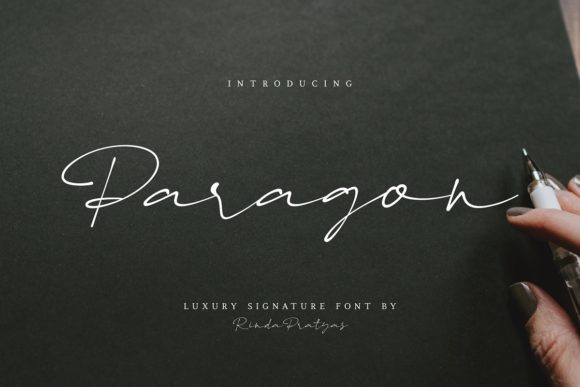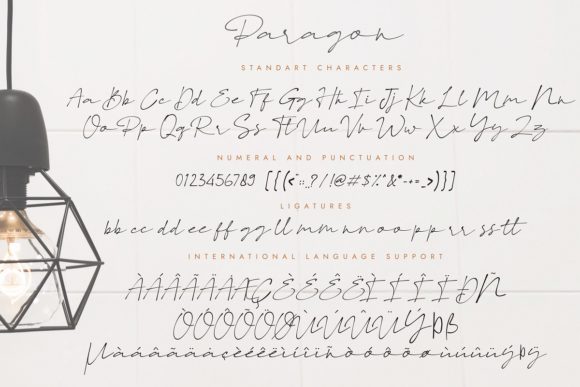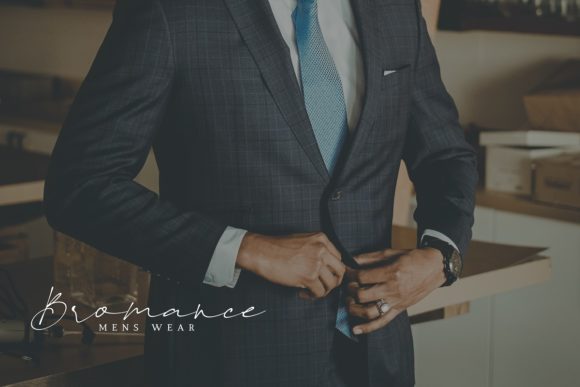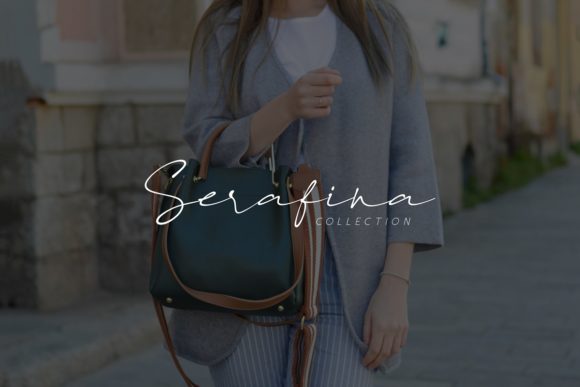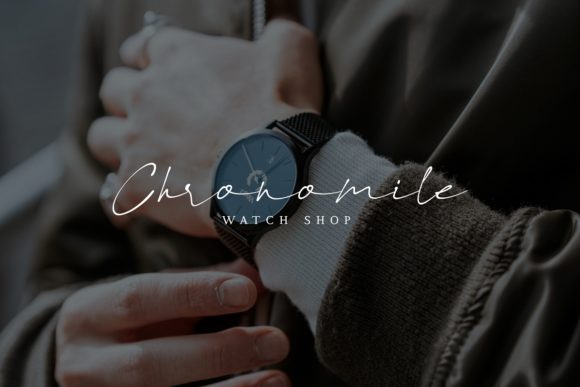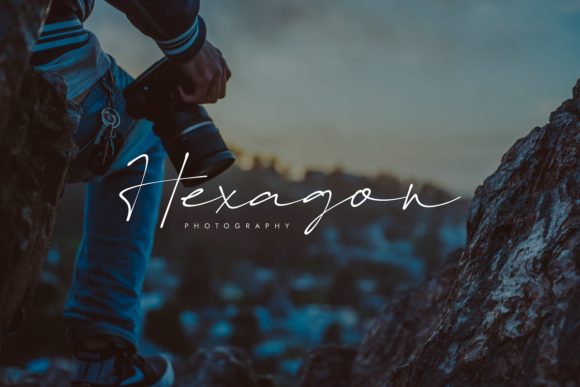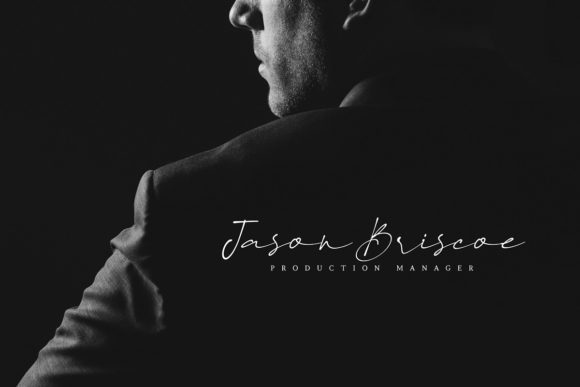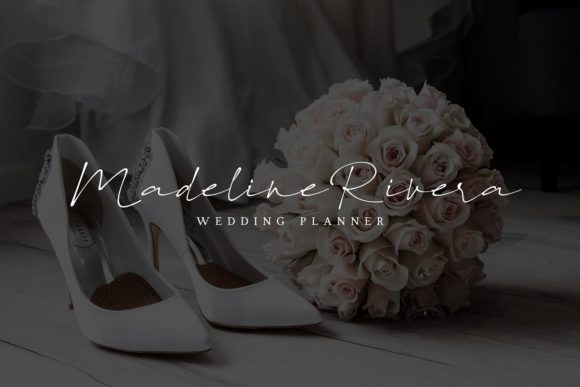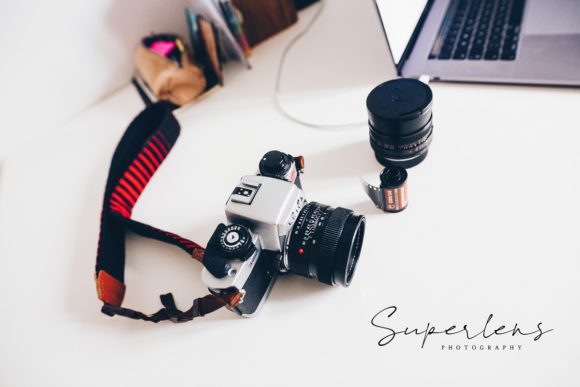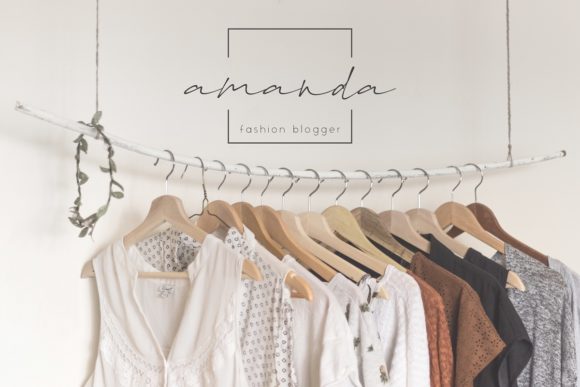
Paragon Font
About Paragon Font
Paragon is an incredibly smart and stylish handwritten font with a contemporary feel. It will add an authentic vibe to any design project.